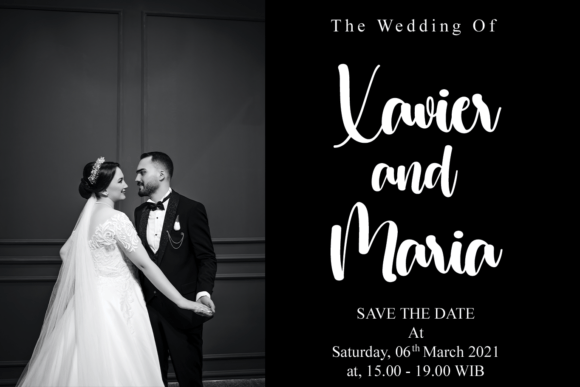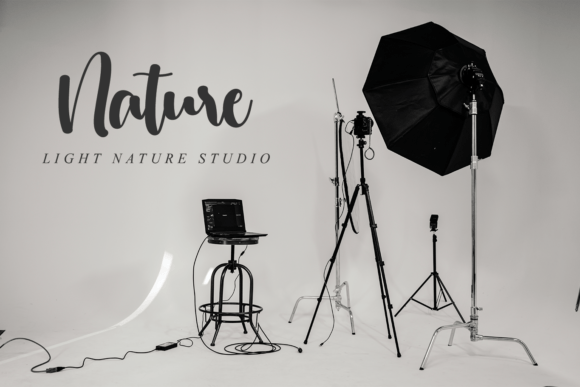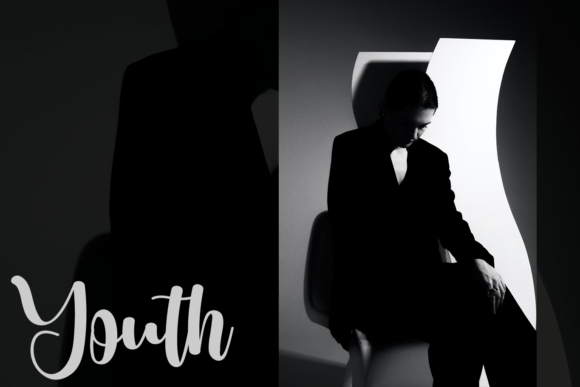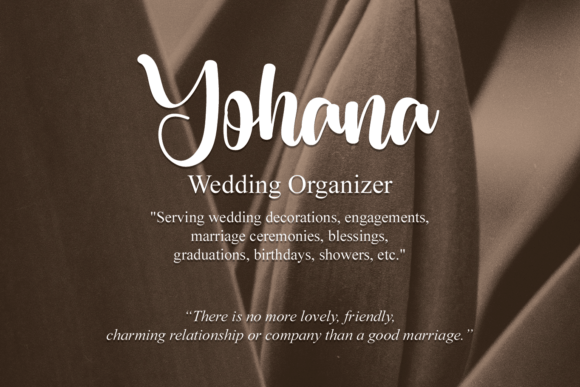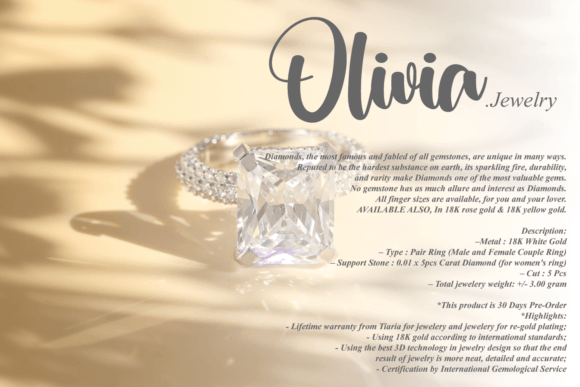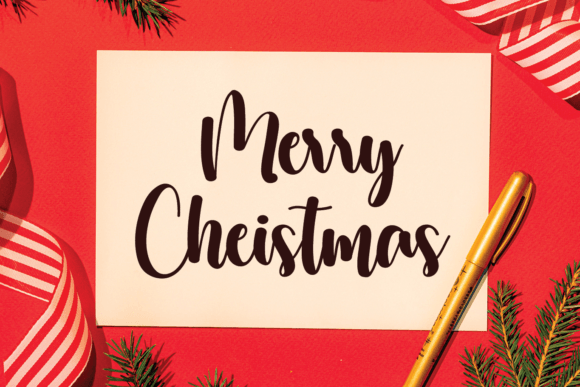
Introduction to Second Child Font
Remember the thrill of discovering a new design resource that perfectly captures the essence of your creative vision? For many designers, that moment of magic is what drives them to push the boundaries of their art. It’s the spark that ignites a chain reaction of inspiration, leading to innovative and breathtaking results. And for those who crave that elusive spark, we’re excited to introduce the Second Child Font – a game-changing, high-quality handwritten font that’s sure to become your new favorite design companion.
Whether you’re working on a free download project or a paid gig, the Second Child Font is an invaluable asset that will elevate your creative project to new heights. With its classy calligraphic influences and modern twist, this font is the perfect blend of tradition and innovation. Its transparent background makes it an ideal choice for designers looking to add a touch of sophistication to their designs.
Key Features of Second Child Font
- Unique, modern design with clean lines and minimalist aesthetic
- Perfect for use in logos, branding, and other graphic design projects
Honest Review: Second Child Font
I recently stumbled upon the Second Child Font while searching for a free download to enhance my creative project. As a designer, I’m always on the lookout for high-quality design resources that can elevate my work.
What works well: ✨ The Second Child Font offers a unique, hand-drawn aesthetic that’s perfect for projects that need a touch of whimsy. The font is available in a range of weights and styles, making it versatile for various design applications. I also appreciate the transparent background option, which allows for seamless layering and compositing.
Overall, I’m impressed with the Second Child Font’s potential and would recommend it for personal projects or non-commercial use. Its unique style and transparent background make it a great addition to any designer’s toolkit.
- Unique, hand-drawn aesthetic
- Available in various weights and styles
For optimal results, use the Second Child Font with a transparent background to create a clean and modern design. Experiment with different font sizes and styles to add visual interest to your project.
The Second Child Font is ideal for use in logos, business cards, and other branding materials. It is also a great choice for creating digital products, such as ebooks and infographics.